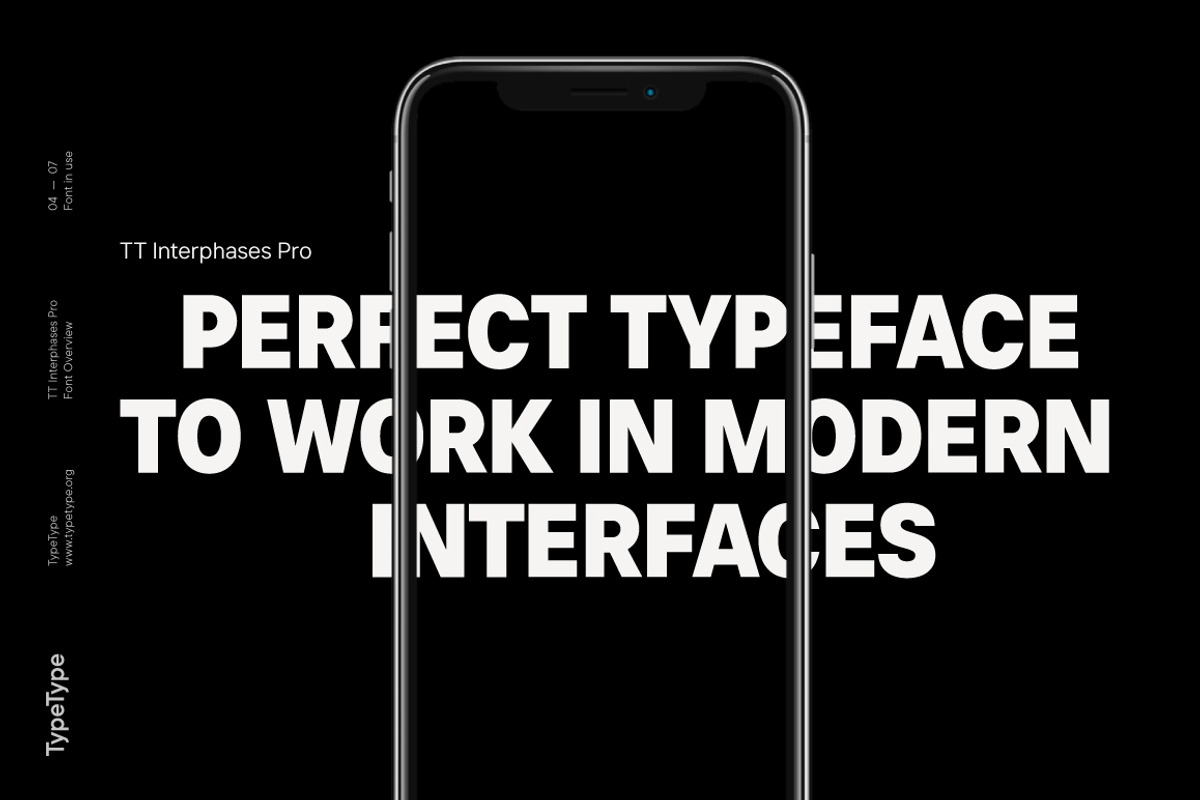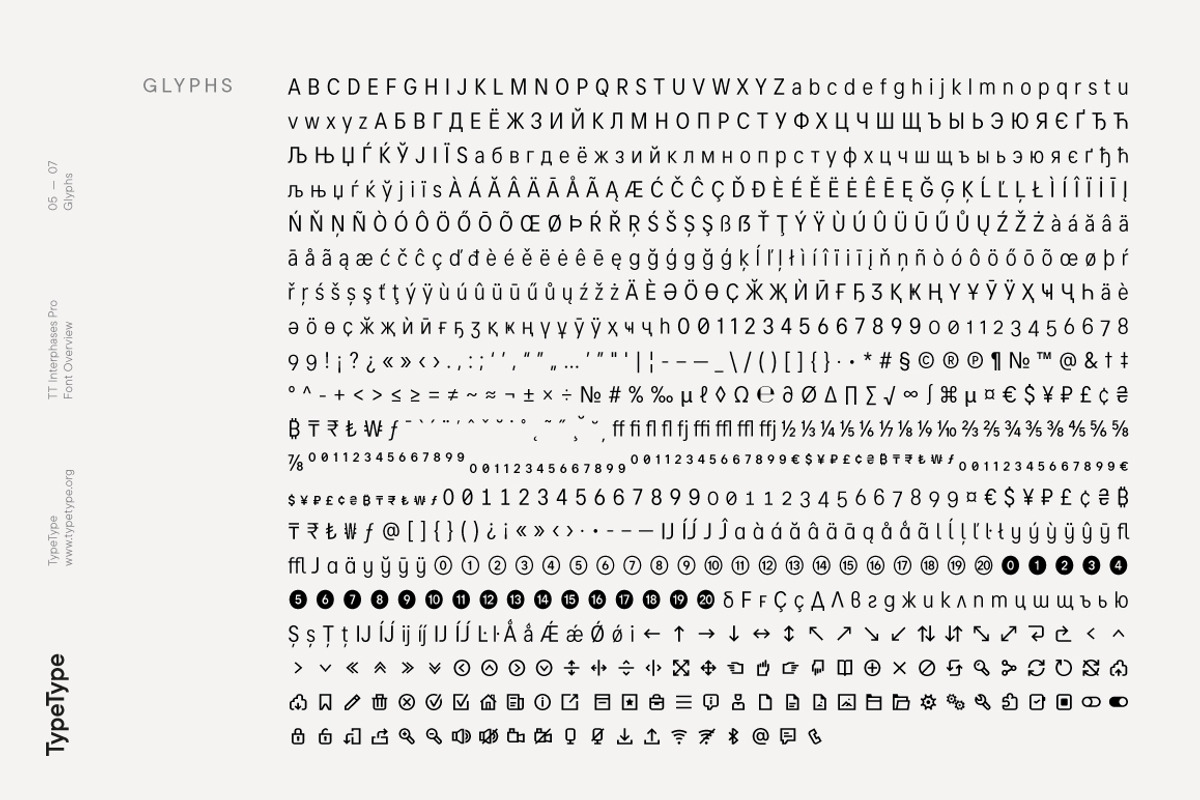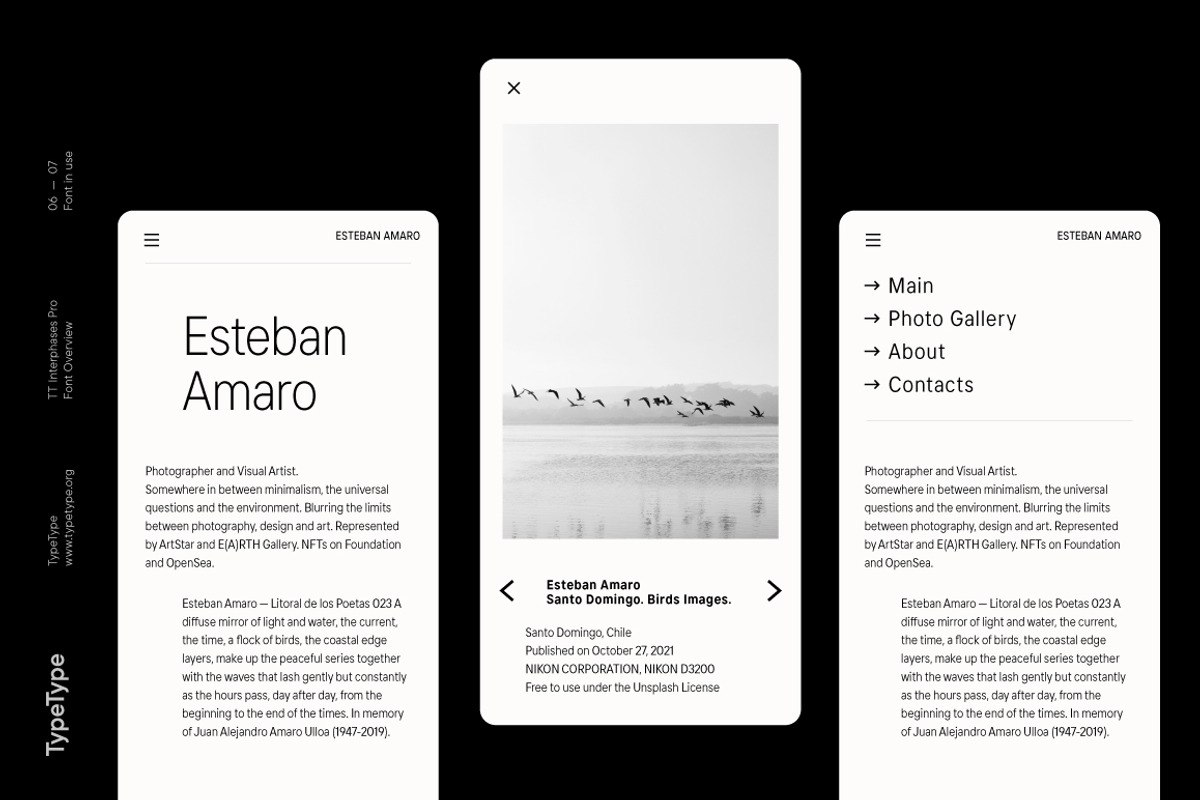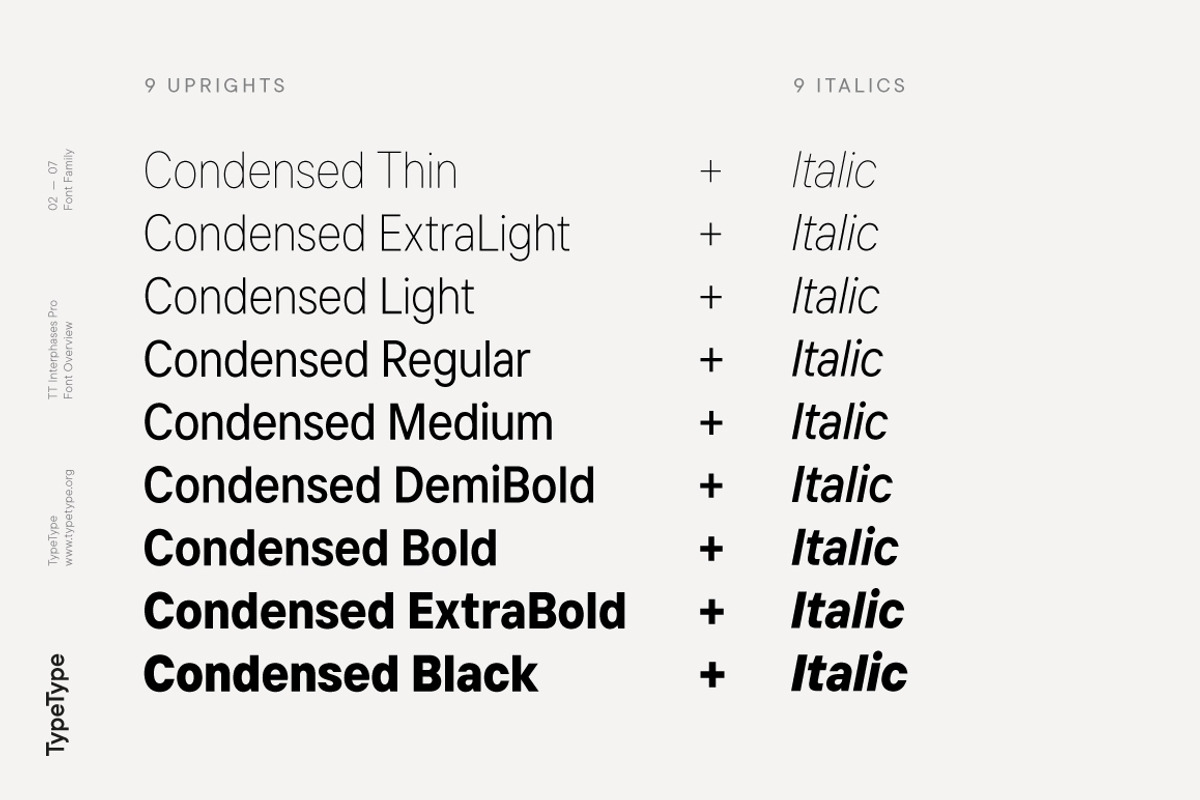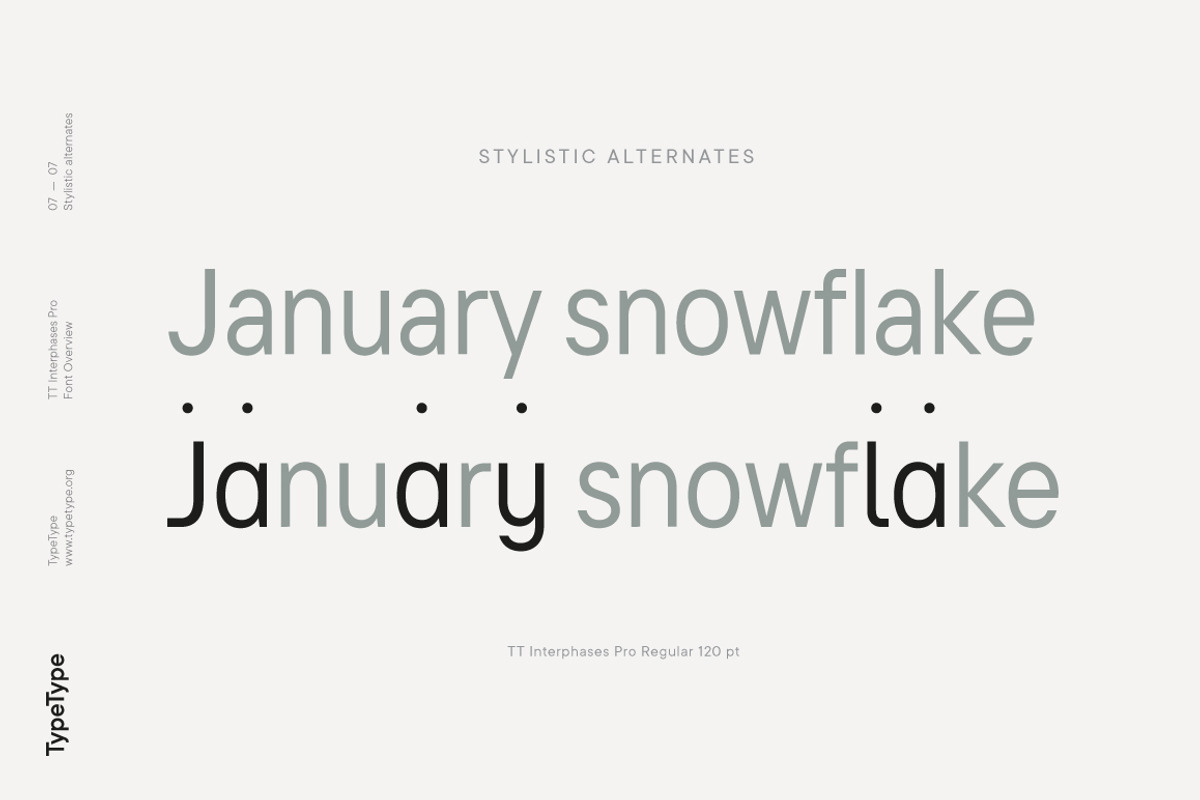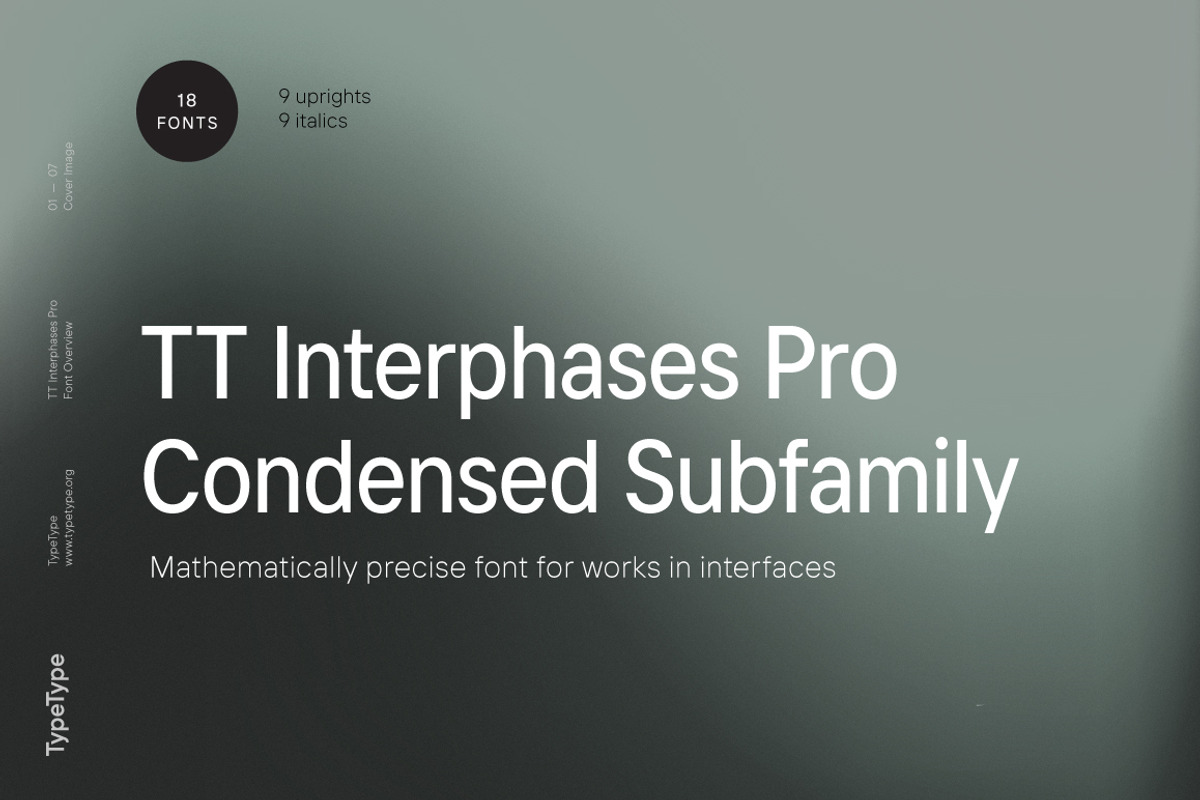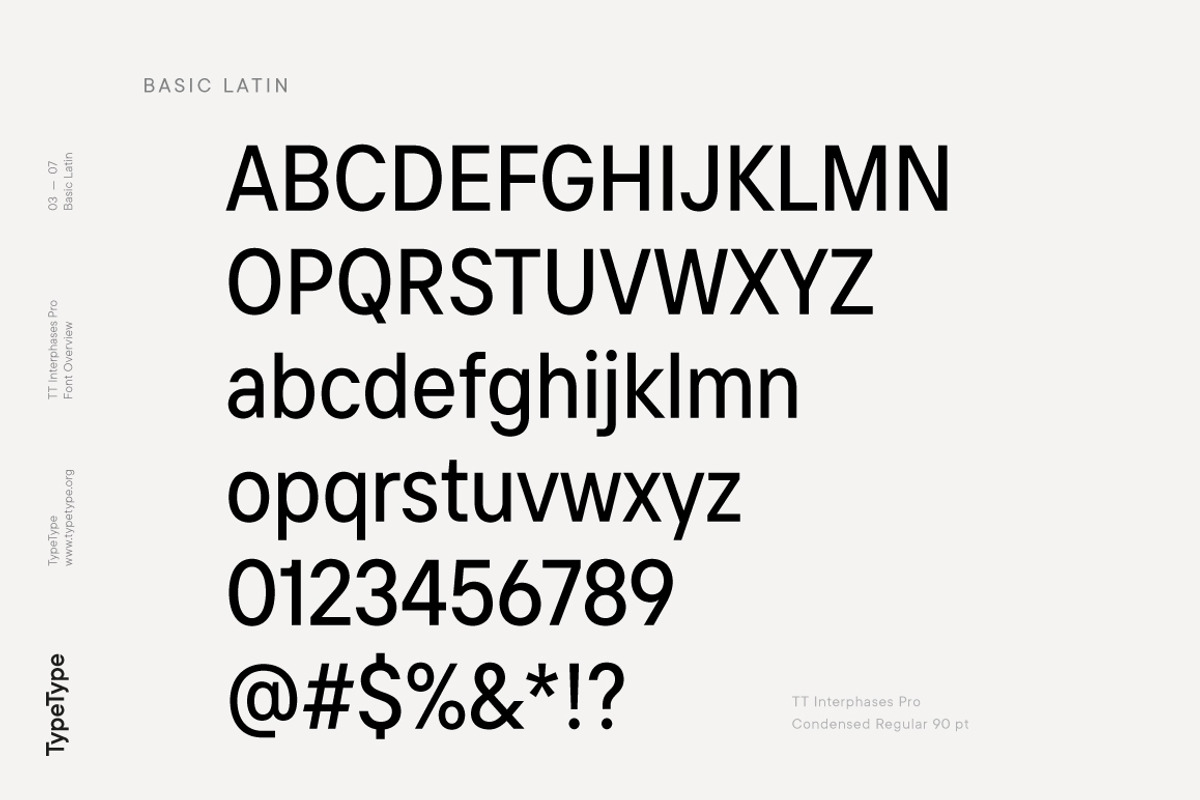
TT Interphases Pro Condensed
TT Interphases Pro Condensed is a Condensed version of our TT Interphases Pro font family https://creativemarket.com/typetype/7190880-TT-Interphases-Pro
Introducing the updated interface font TT Interphases Pro!
Many are familiar with TT Interphases: convenient and modern, it was created specifically for working in interfaces. It's time to get to know the extended version of the popular font—TT Interphases Pro, improved and even more relevant. We have preserved the neutrality and main characteristics of TT Interphases, but the new font differs from its predecessor in greater functionality and aesthetics.
We have literally reassembled the font making every contour perfect. In TT Interphases Pro, the character set has been increased by 18 styles thanks to the addition of the Condensed version, and we also added extended Latin characters and special symbols. The technical side of the font has become more convenient, and we did kerning and hinting from scratch. It is now more convenient to use stylistic sets and features, and the font looks more consistent and feels more harmonious.
We have paid special attention to the variable version of the font, in which you now can change the thickness of strokes, width of characters and the incline angle of strokes. From Thin to Black, from Condensed to Normal, from 0 to 11 degrees - and so we have the variable font worthy of TT Interphases Pro.
TT Interphases Pro is a neo-grotesque sans serif with equal-width proportions, thanks to which the text set in the new typeface looks uniform. The tall lowercase characters improve the readability of the font on screen, while the neutral nature of the glyphs and the squared shapes of the round characters allow the font to remain readable even in small sizes. Among the visual features, users will notice smooth forms of roundings repeated in all elements, which makes large text arrays easy and pleasant to read, while closed apertures create the modern characteristic feel of the font.
In TT Interphases Pro, designers will be able to use 2 widths at once, the already familiar standard one and Condensed, a narrow version that can be used to make text display. TT Interphases Pro has a large set of icons that visually match the characters in the font. TT Interphases Pro is the perfect font for working in interfaces on modern mobile and web platforms.
The subfamily of the more display sans TT Interphases Pro Mono with interesting glyph shapes and the same width of glyphs will also pleasantly surprise you. A monospace subfamily is suitable not only for use in coding, but also for creating design products.
TT Interphases Pro consists of 37 styles: 18 uprights, 18 italics and 1 variable font, each with 978 glyphs. The family contains 24 OpenType features, among which there are tabular versions, numerators, denominators for figures and currencies, as well as alternative forms of characters a, l, y. The monospace subfamily consists of 6 weights: 2 uprights, 2 true italics and 2 variable fonts. It contains 18 functional OpenType features.